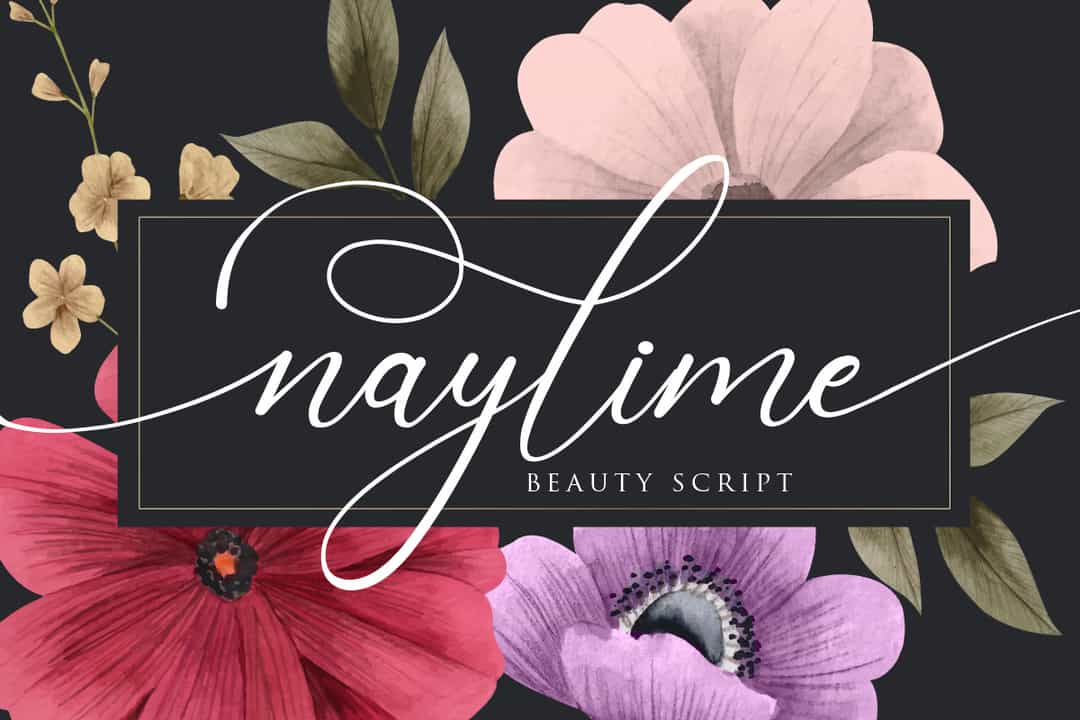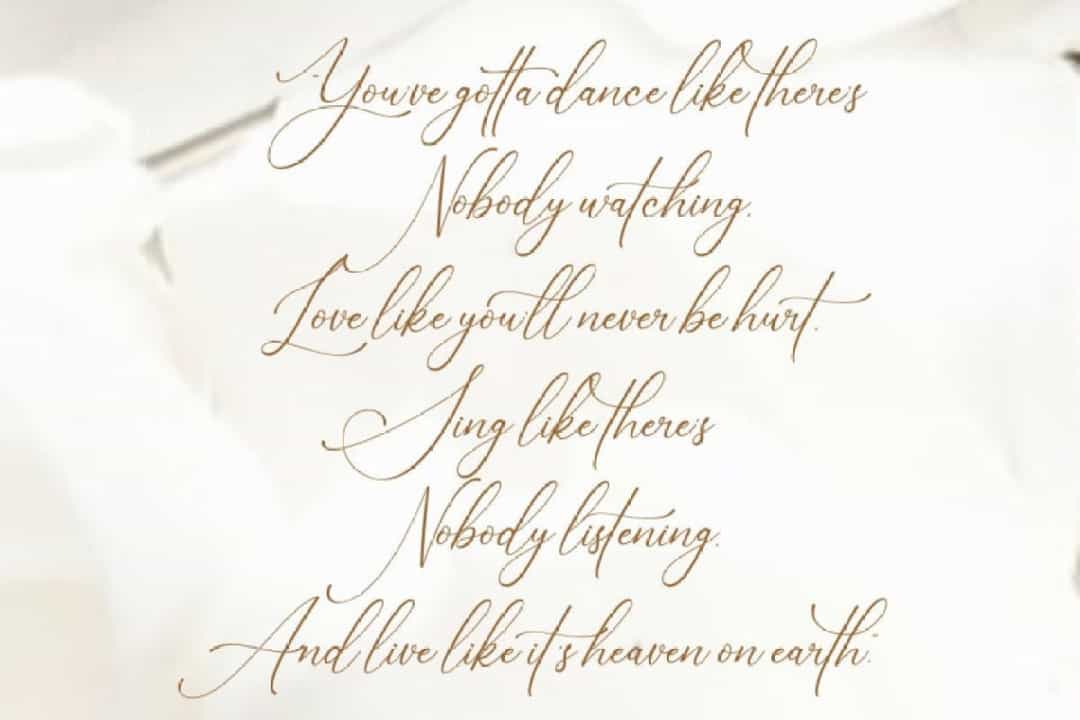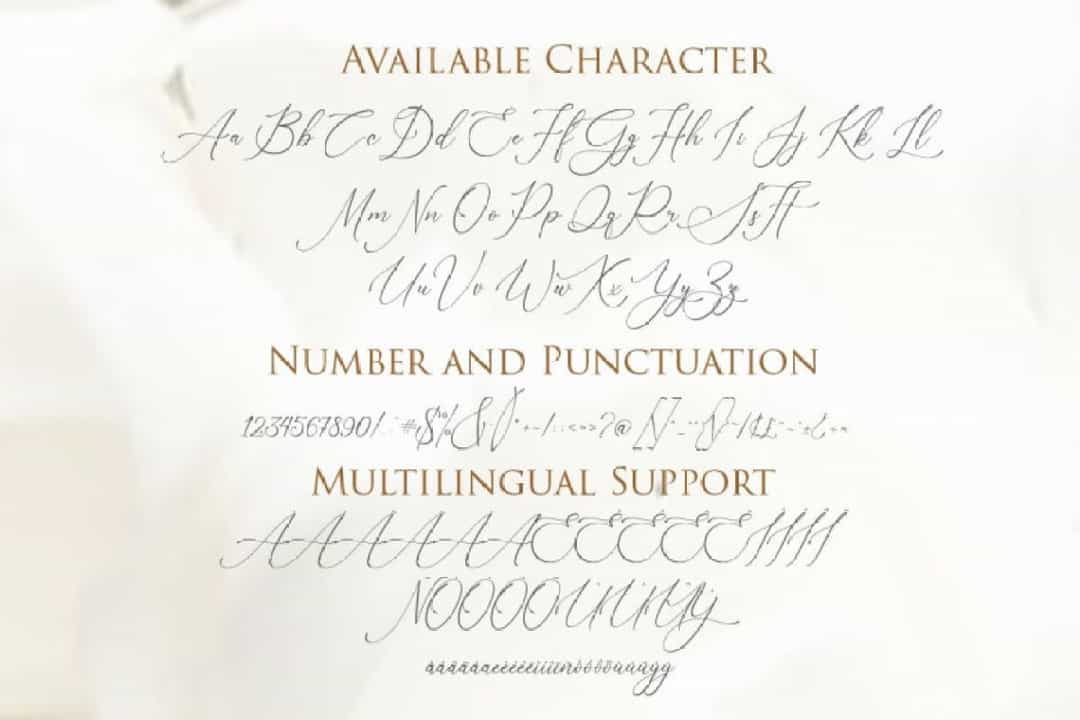
Naylime is an eye-catching light calligraphy font with a distinctive look and striking impact, perfect for adding sophistication and dazzle to any design you create! PUA encoded, you have access to all its beautiful glyphs and ligatures easily!